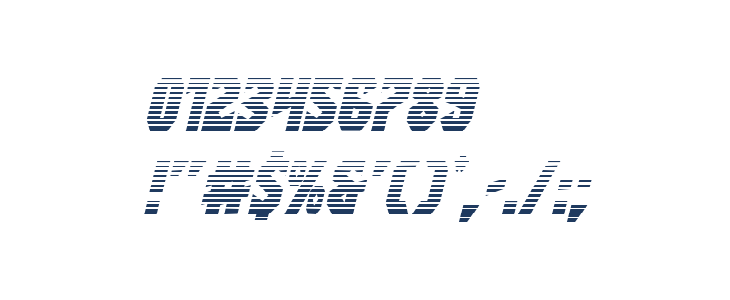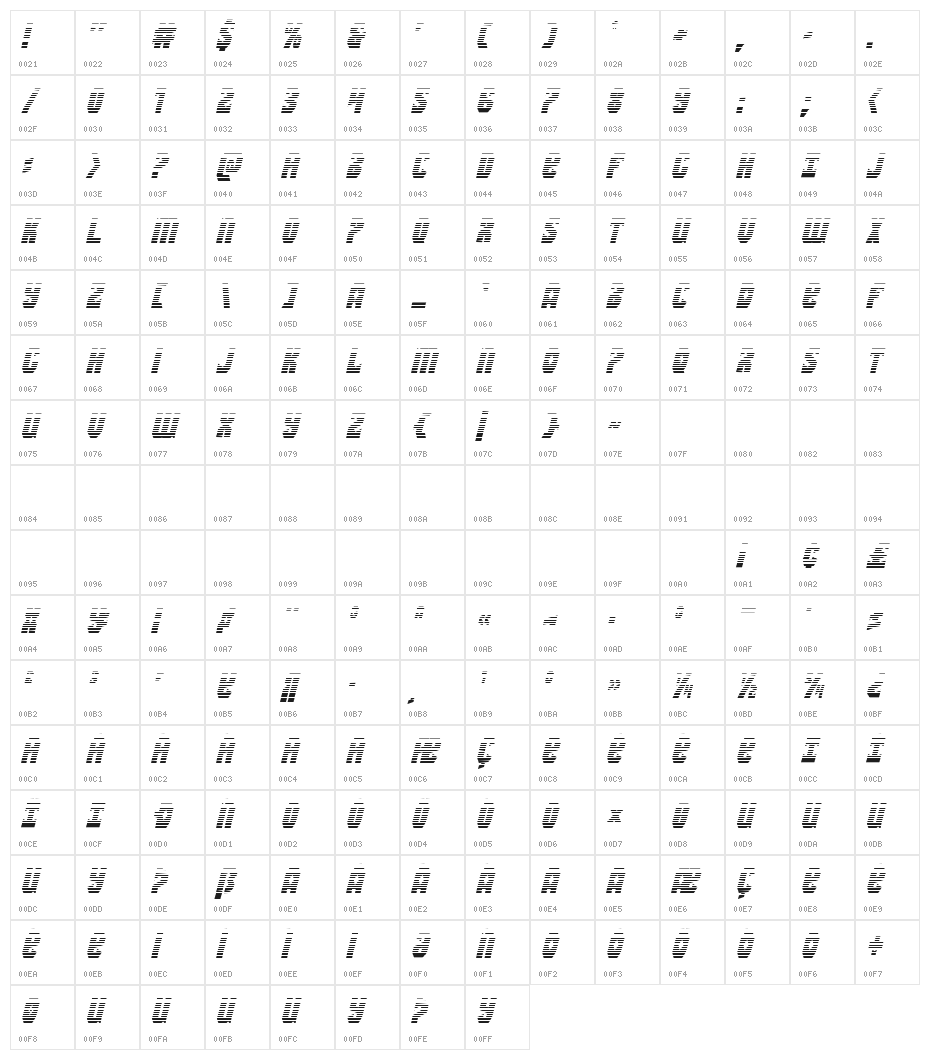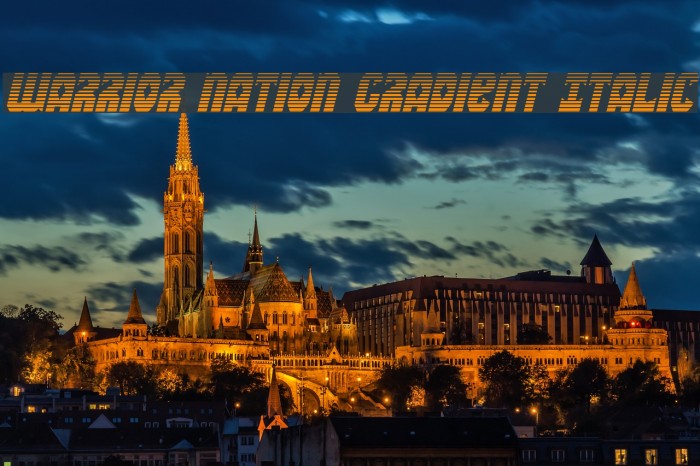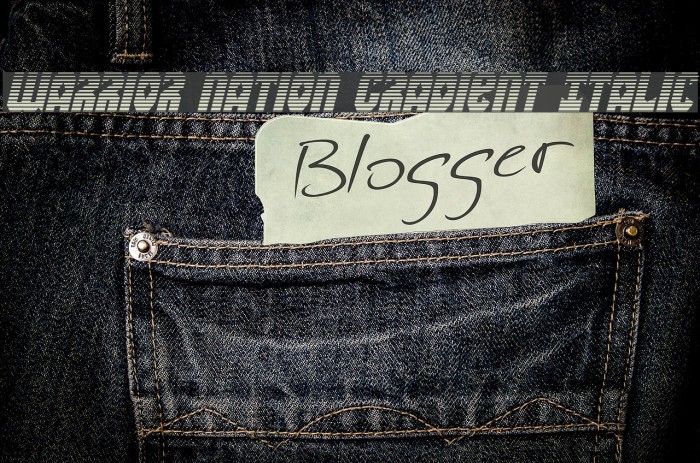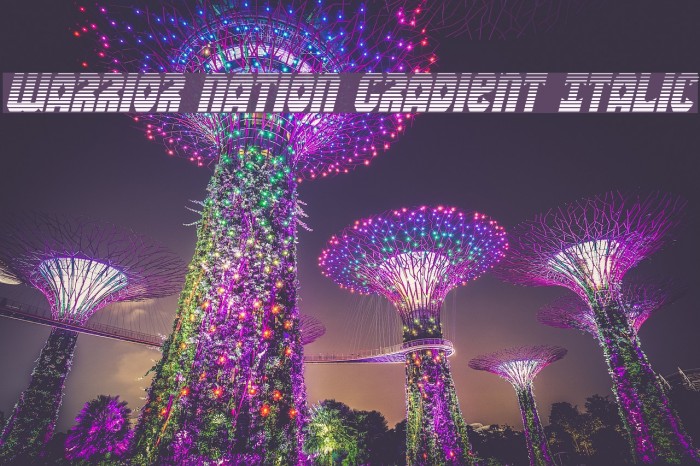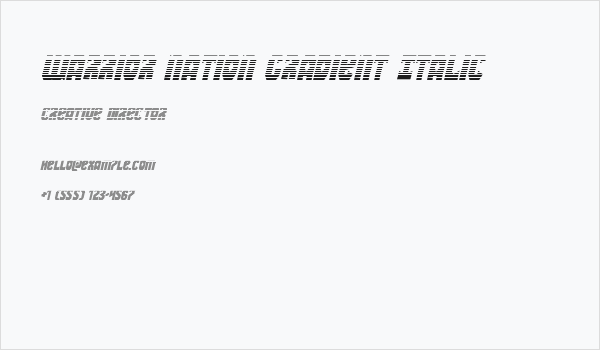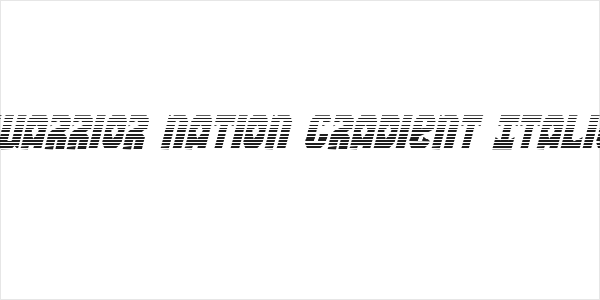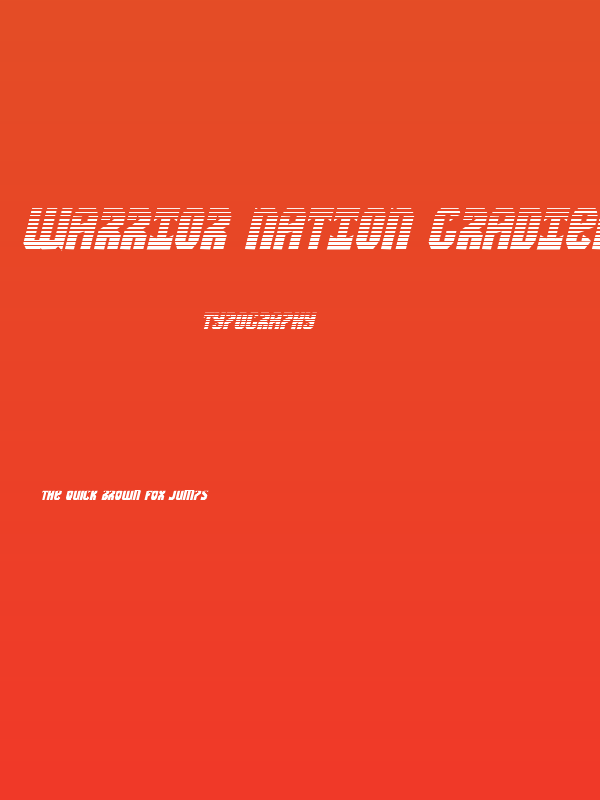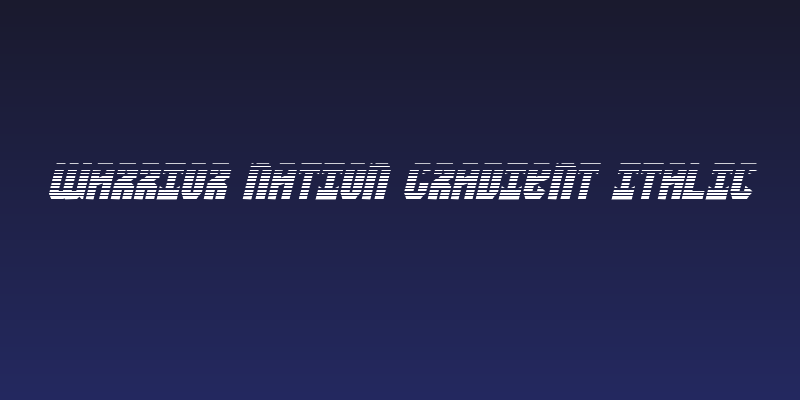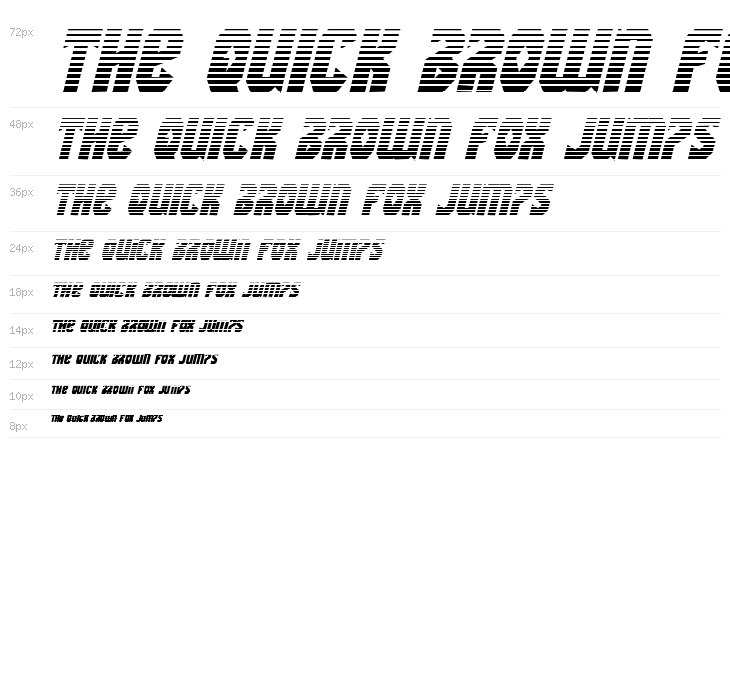
Warrior Nation Gradient Italic Font
Warrior Nation Gradient Italic Description
This font features a bold, italicized style with a unique gradient effect that gives it a dynamic, futuristic appearance. The characters are composed of horizontal lines that create a sense of movement and energy, making it ideal for attention-grabbing designs. The uppercase and lowercase letters maintain a consistent style, with sharp angles and a slightly condensed form. The numbers and special characters follow the same design principles, ensuring uniformity across all glyphs. This font's distinctive look is perfect for projects that require a modern and edgy aesthetic.